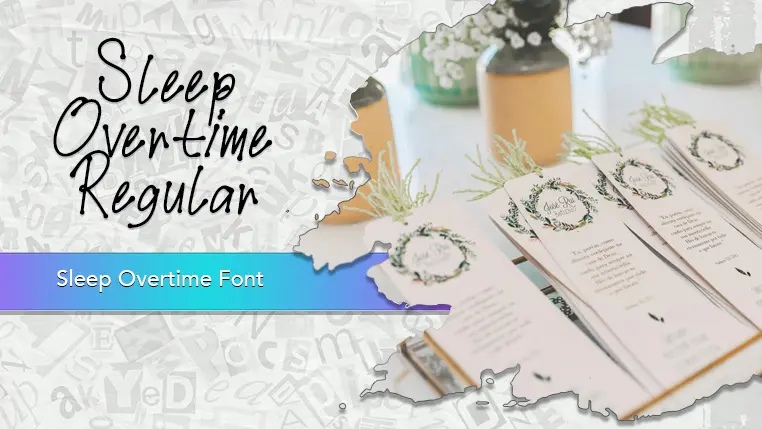
The Sleep Overtime font family may be ideal for you if you enjoy working on an artistic design project. The lively, expressive look of this typeface, which was created by Studio Hello Good, makes it ideal for Logos for personal blogs, podcasts, or creative services, Graphics for Instagram, Pinterest, or YouTube, especially for quotes, short messages, or content related to lifestyle, comfort, or creativity. Titles and banners for personal blogs or online shops that aim for a warm, inviting feel. Informal party invitations, Greeting cards, thank-you notes, or personalized stationery that leans towards a friendly, non-formal tone. and other light-hearted visual projects.
Regular are the one primary font styles of the Sleep Overtime font family. You may build dynamic, visually appealing text layouts with the distinct flair that each style offers. With crisp, readable lines and a relaxed tone.